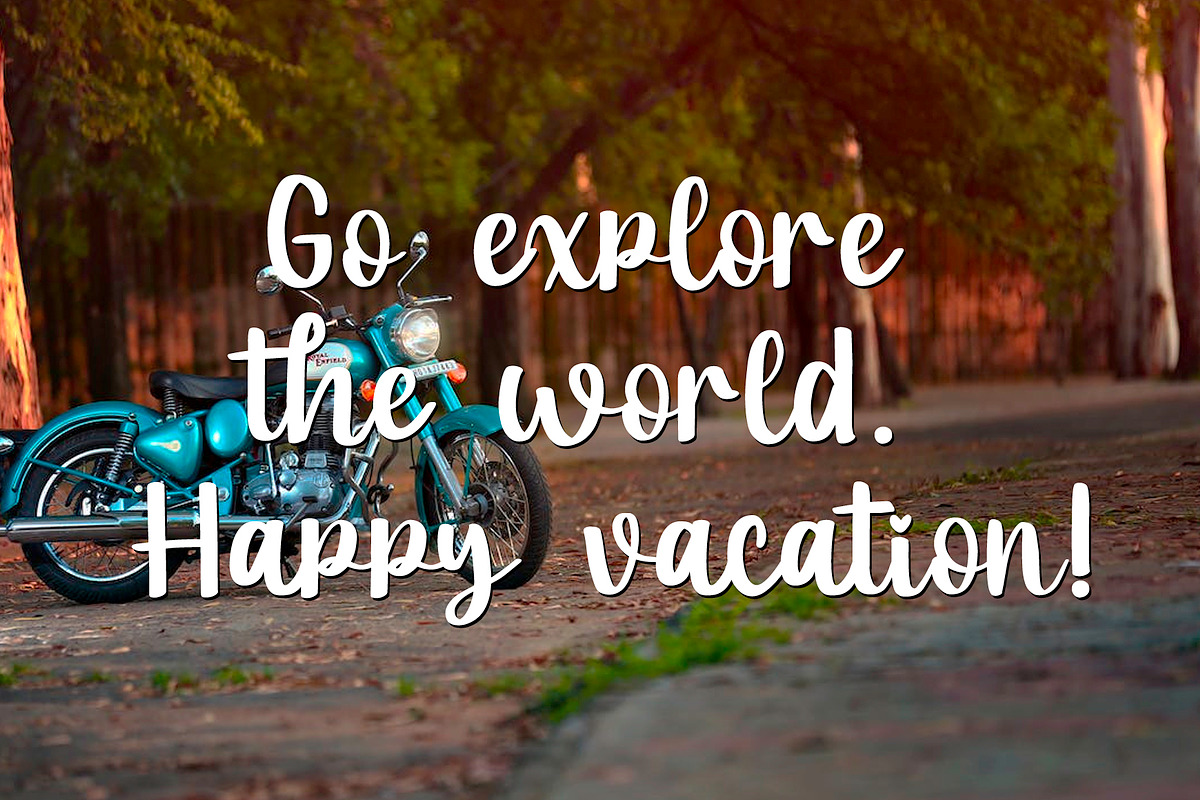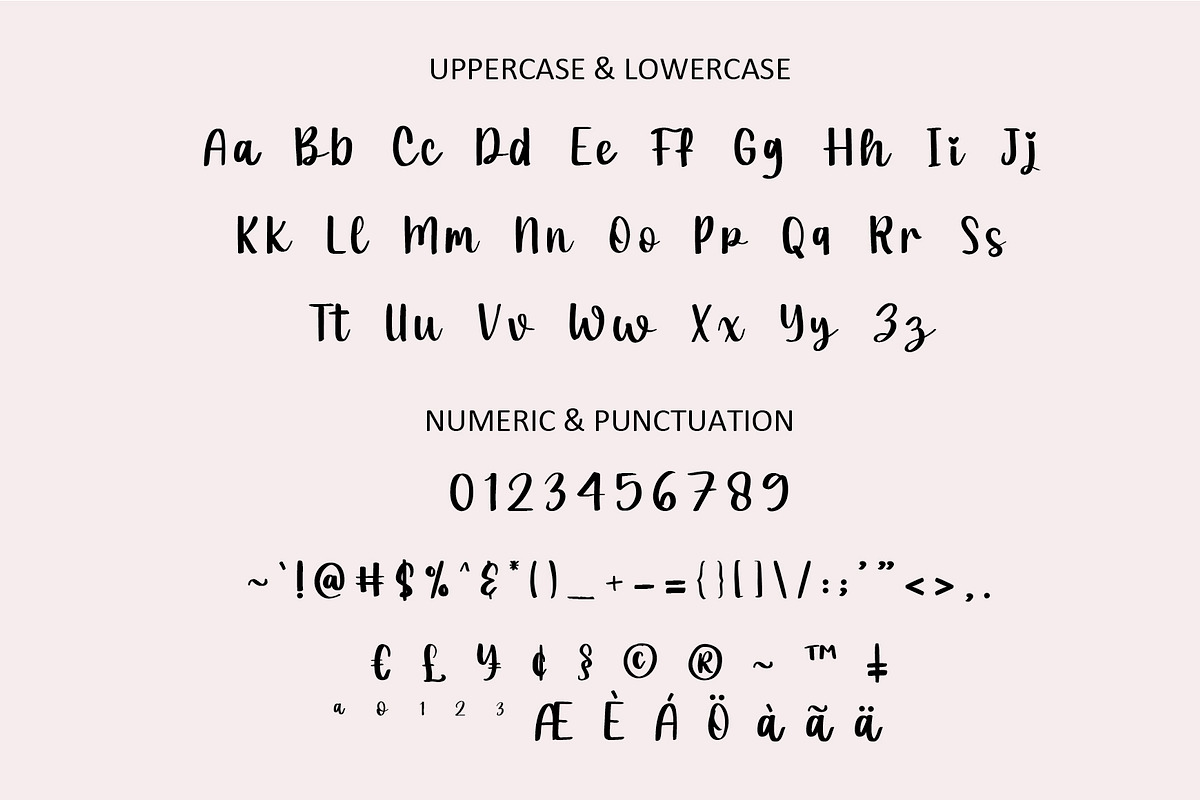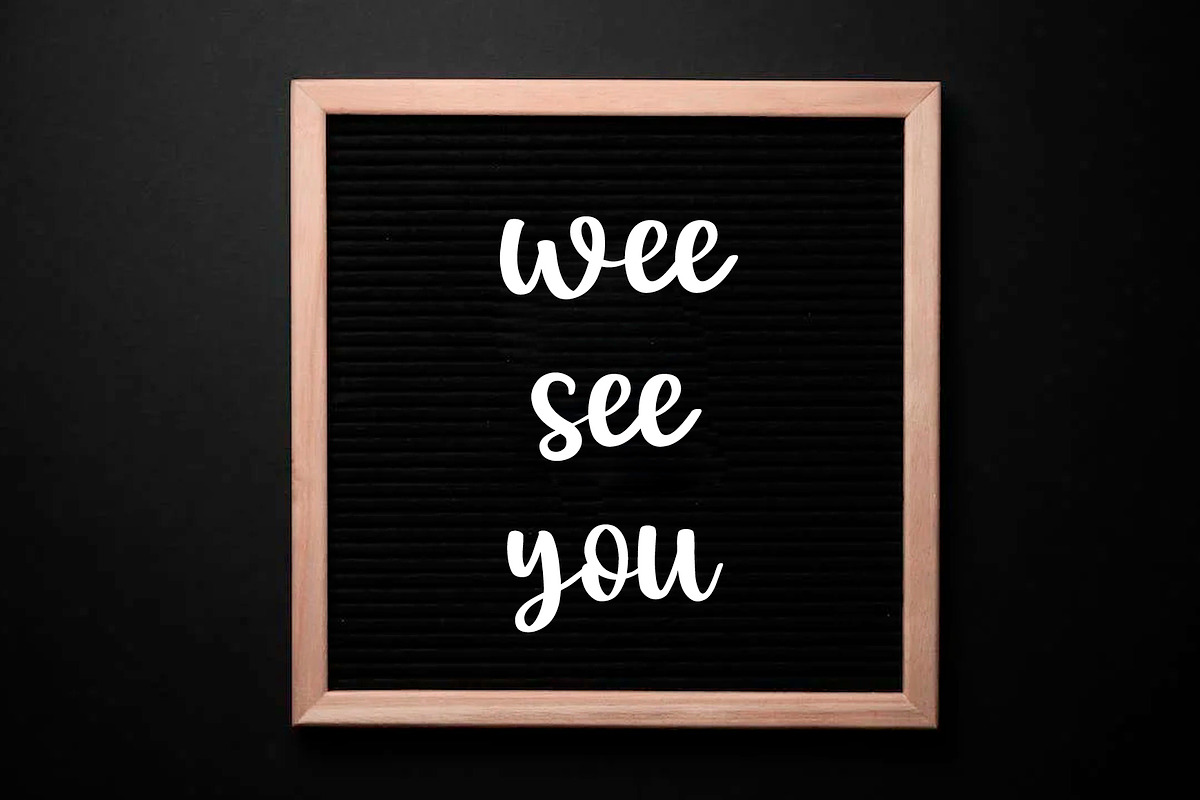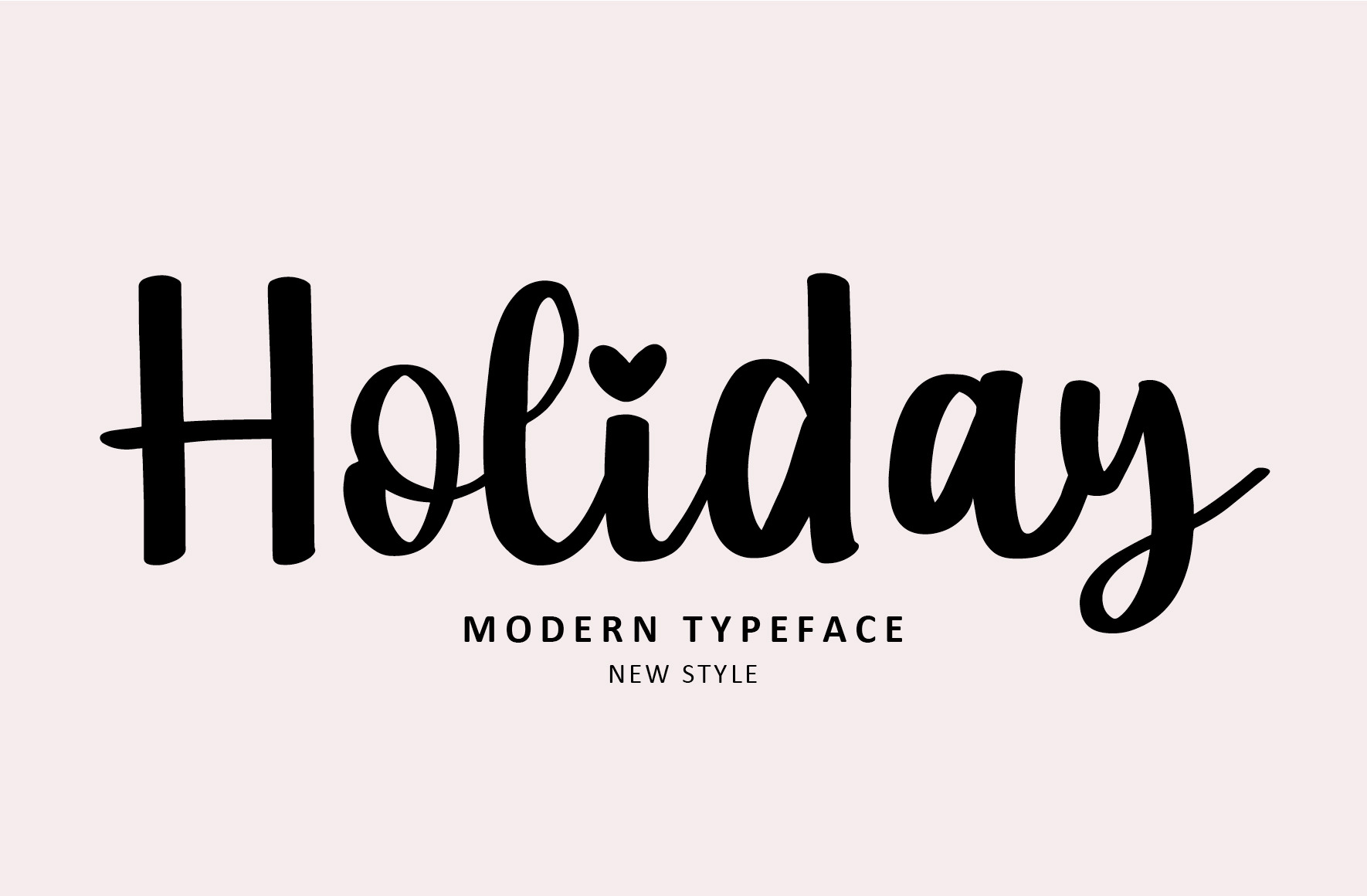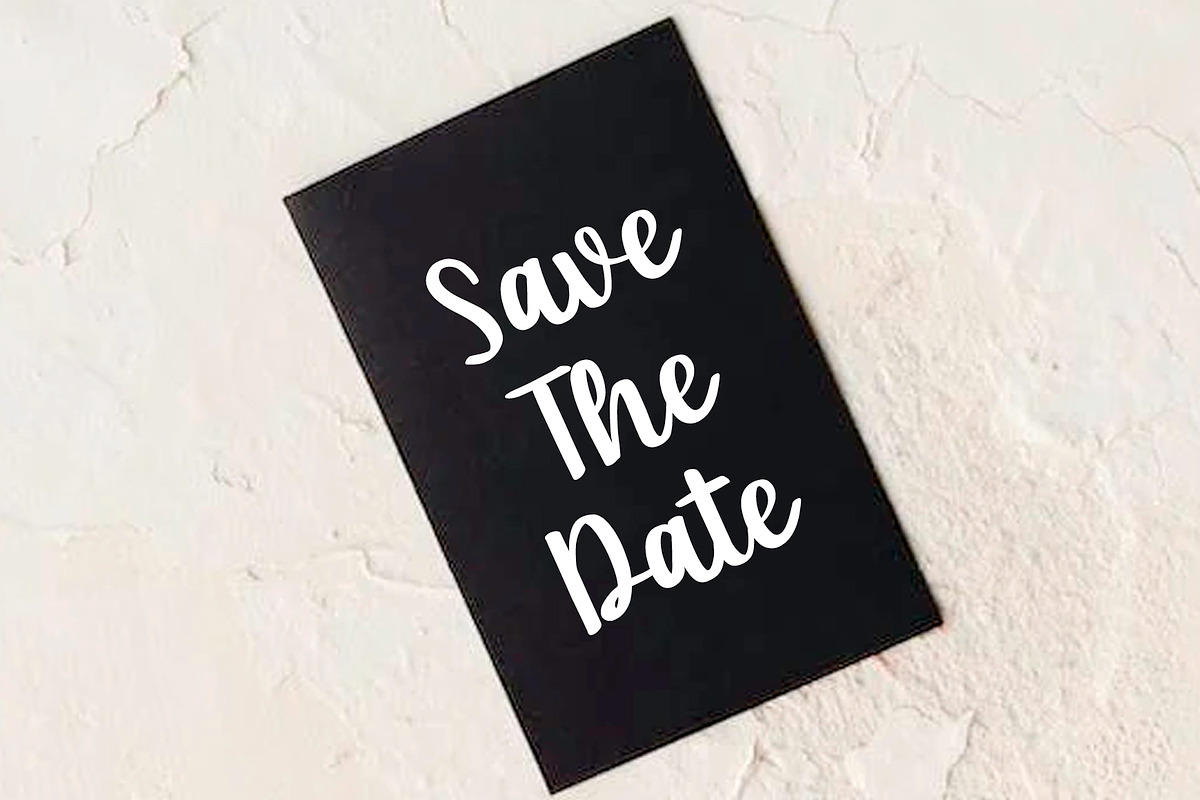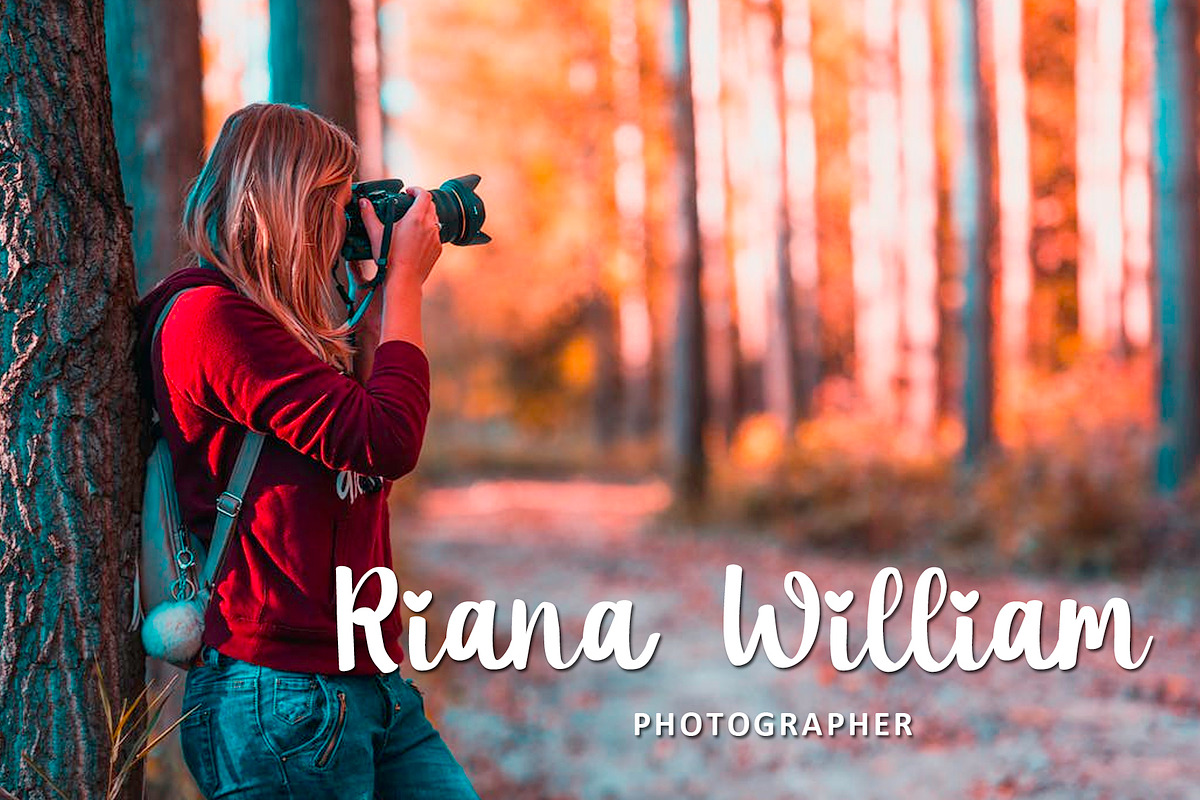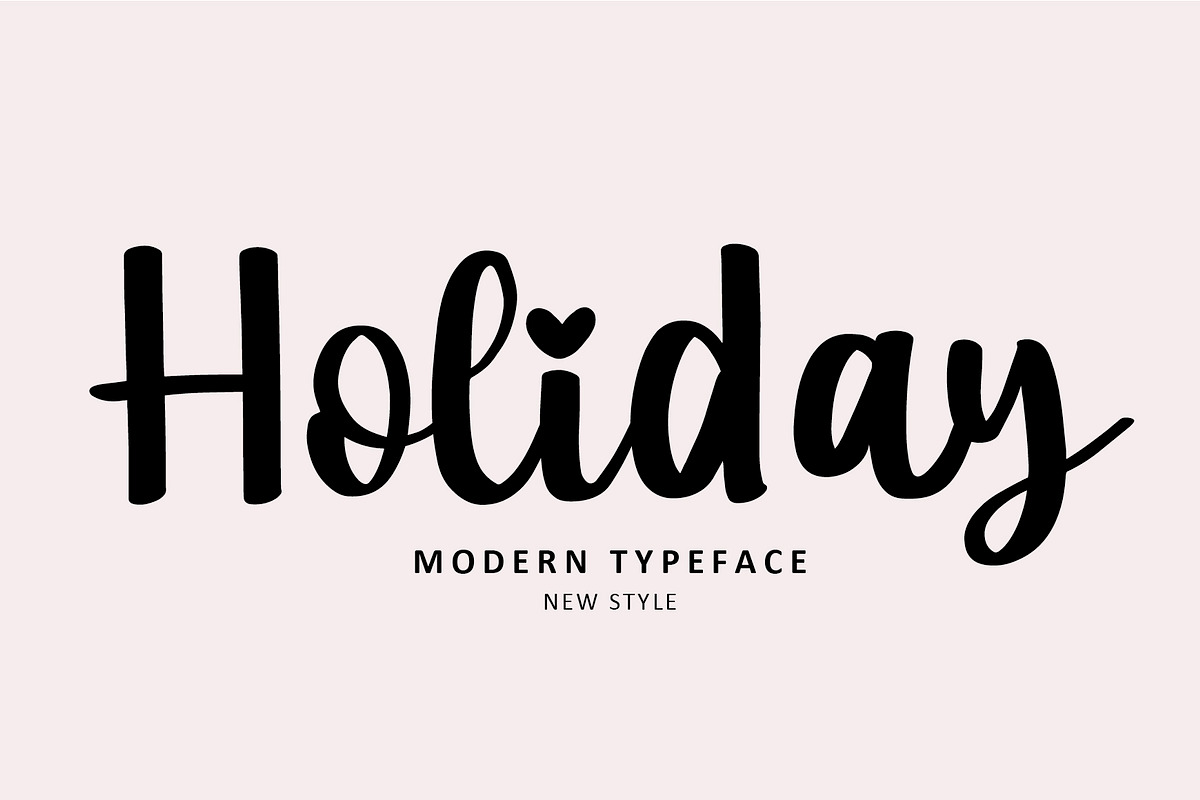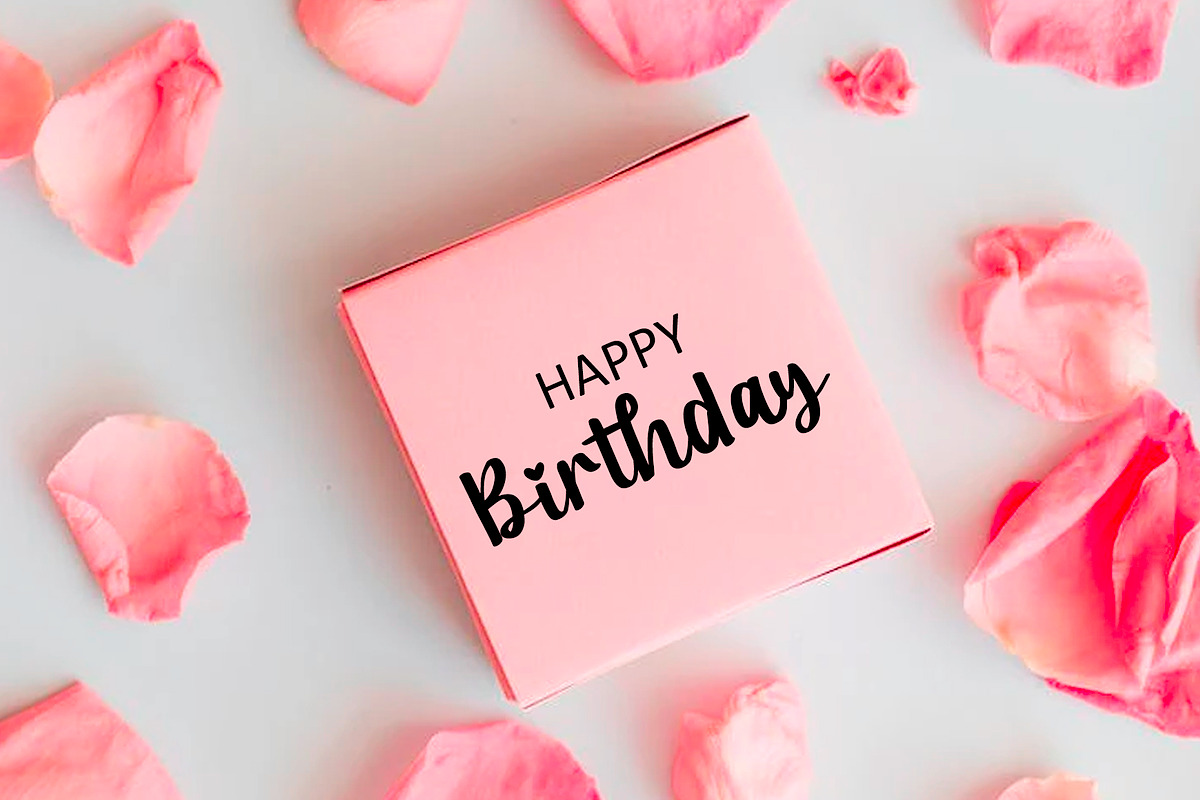
Holiday Handwritten Font
Holiday is a fun and beautiful handwritten script font. This font would look beautiful in a variety of design ideas. It will add a joyful and romantic touch to each of your projects!